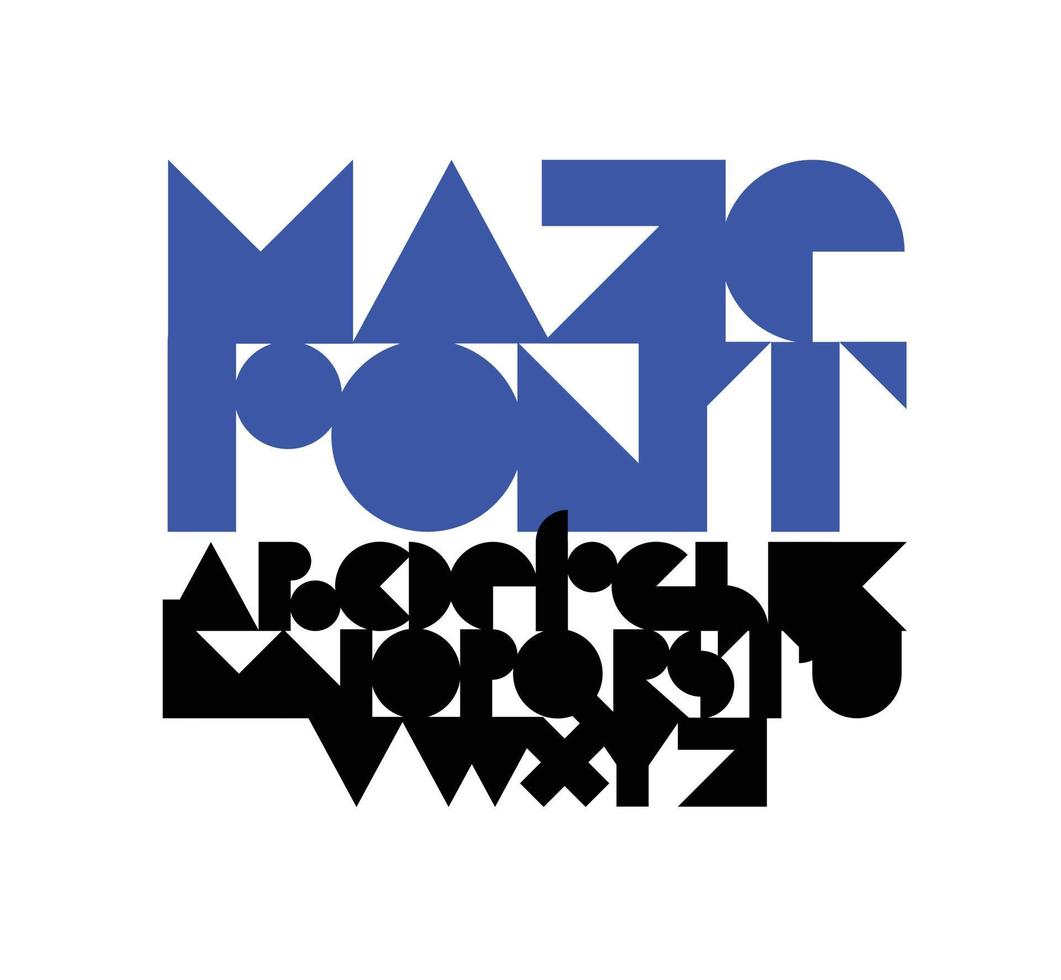
Modern abstract font made of geometric shapes. Vector. Display font for headlines in advertising posters. Bright letters for your design. Minimalistic style. Pro Vector